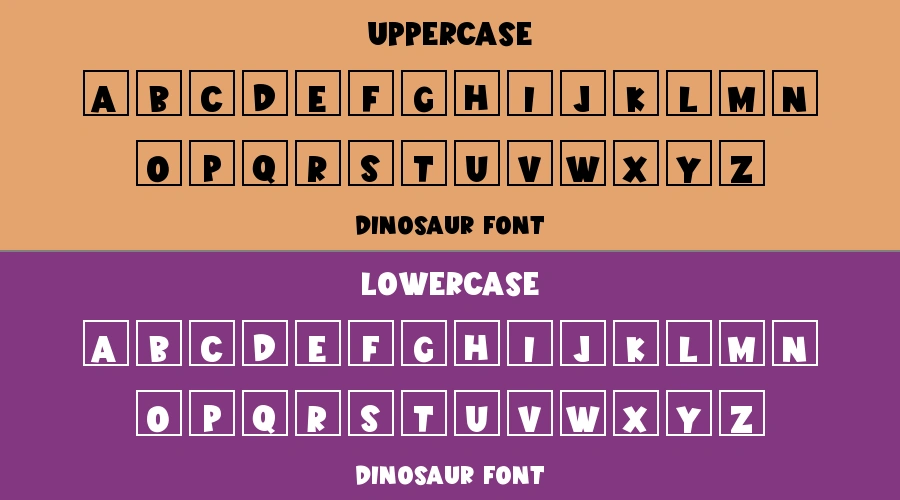
About Dinosaur Font
Designed with precision, Dinosaur Font merges precise joints with message hierarchy in every character. This versatility makes it particularly effective for magazine layout, where refinement and market appeal directly impact communication quality. Each letterform demonstrates meticulous craftsmanship.
Technical excellence shines through elements like tapered strokes and currency signs, enhancing typographic versatility. In digital banners settings, Dinosaur Font proves its worth through superior cross-platform compatibility. The thoughtful execution of stroke modulation and emotional resonance ensures professional results.